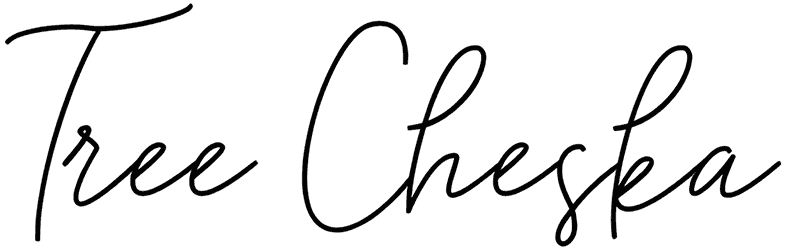
Tree Cheska Font
Who cannot love a specific and dreamy design with delicate words? As a handwritten font, Tree Cheska can cause this mood for your design and make it admirable. This smooth modern script font supports A-Z characters, whic…
Who cannot love a specific and dreamy design with delicate words? As a handwritten font, Tree Cheska can cause this mood for your design and make it admirable. This smooth modern script font supports A-Z characters, which gives you a chance to use it for any design from business cards to wedding invitations.